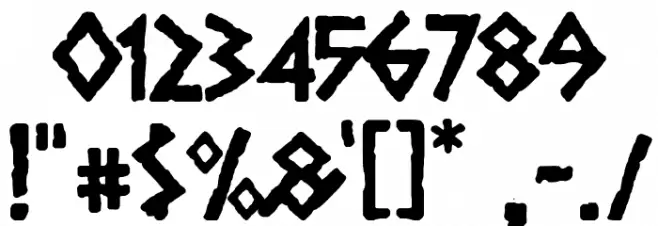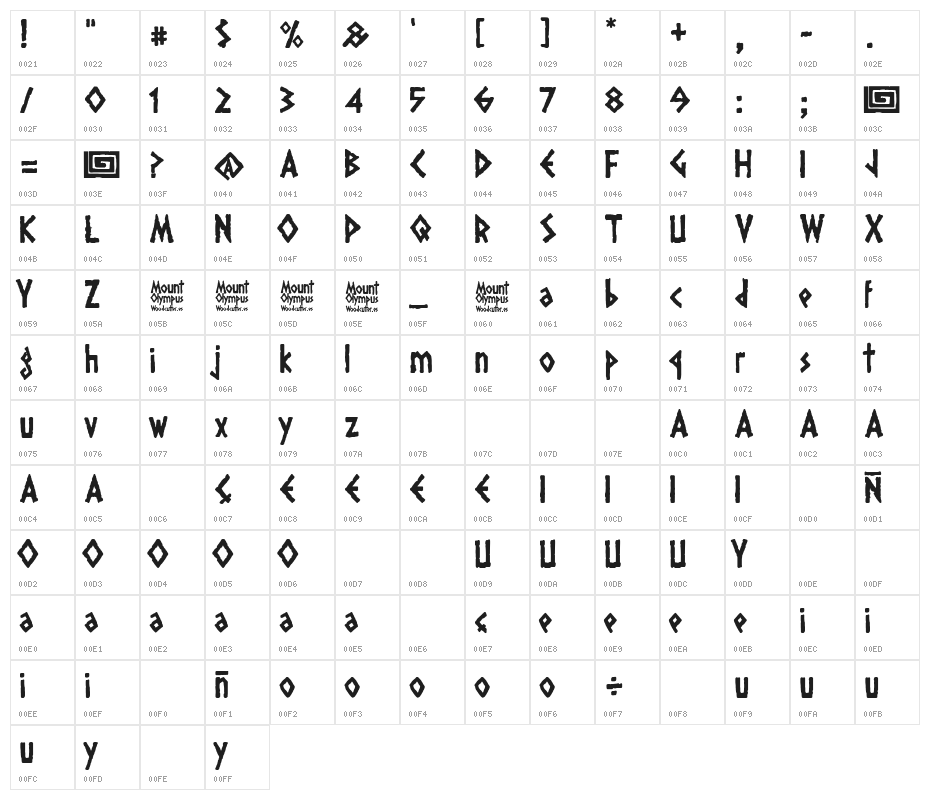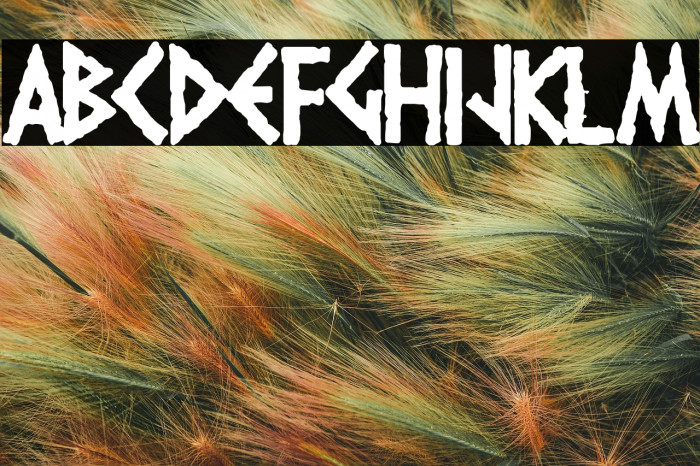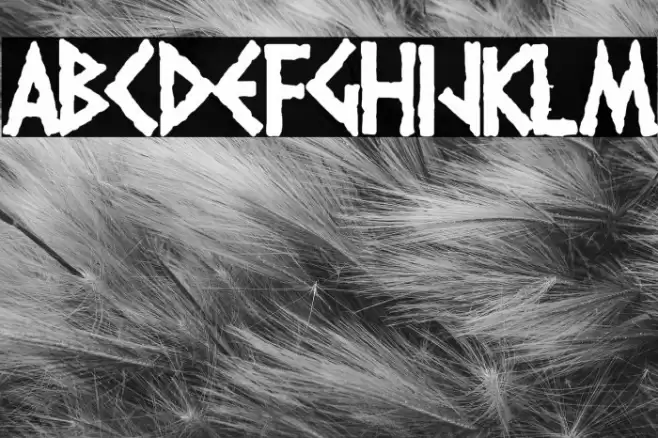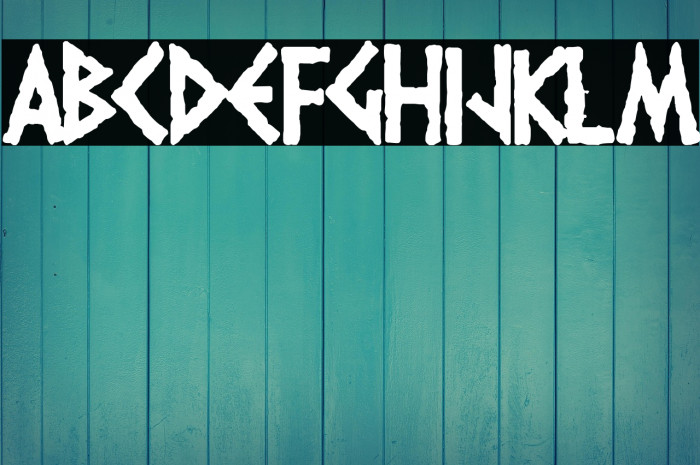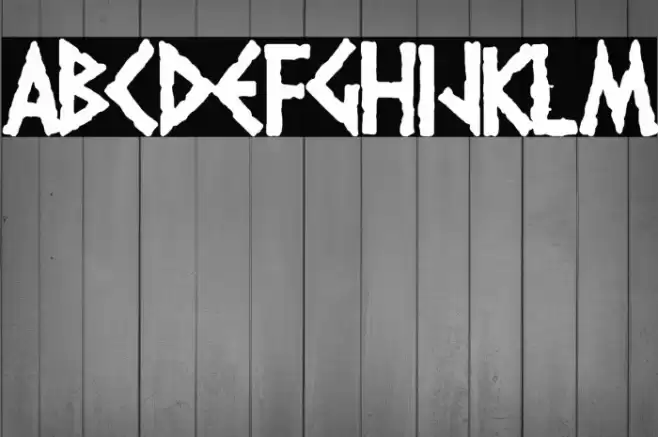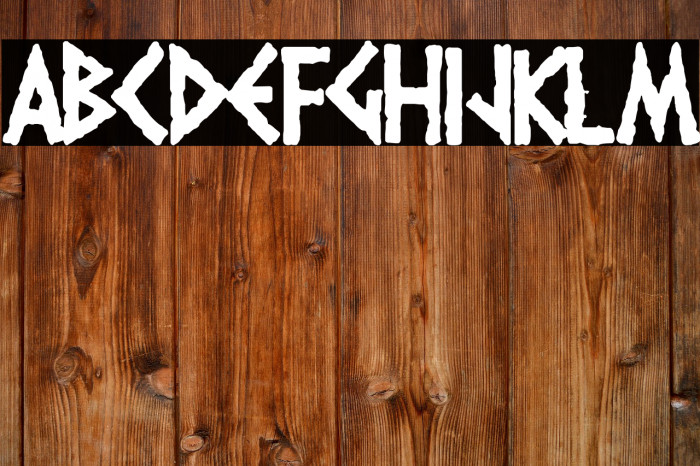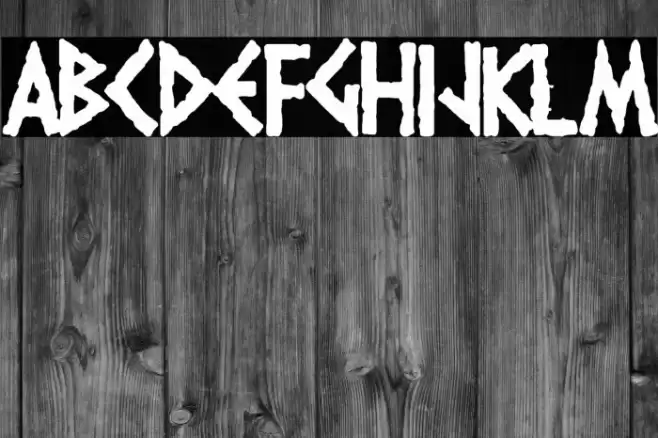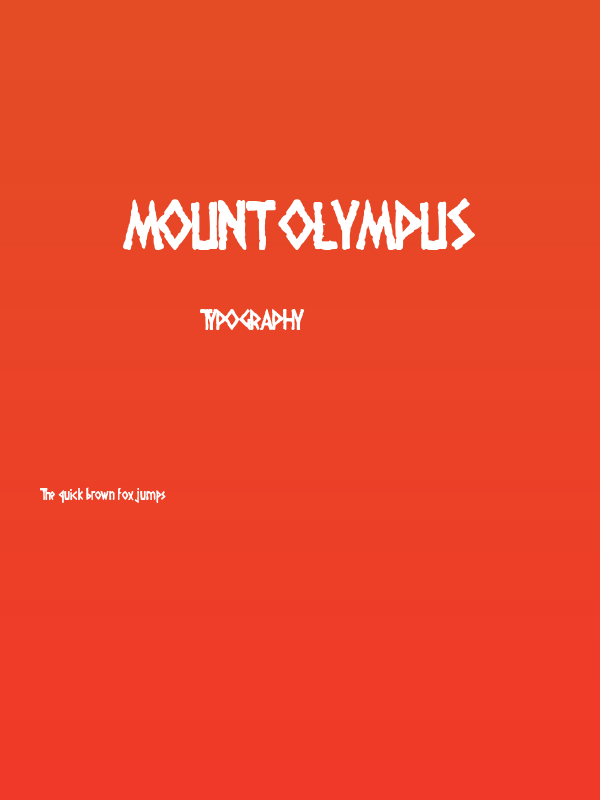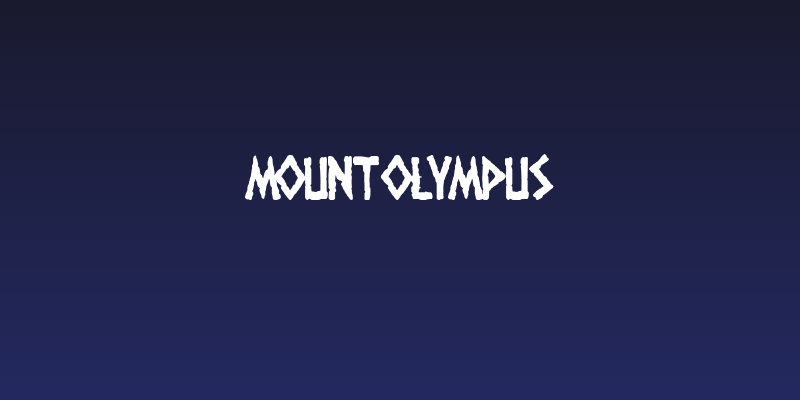
Mount Olympus Font
Mount Olympus Description
This font features a bold and rugged design, reminiscent of ancient inscriptions carved into stone. The characters have a rough, hand-chiseled appearance, with uneven edges and a slightly irregular form that adds to its rustic charm. The uppercase letters are particularly striking, with angular lines and sharp corners that convey a sense of strength and durability. Lowercase letters maintain the same rugged style, ensuring consistency throughout the typeface. The numbers and special characters are equally bold, matching the overall aesthetic. This font is perfect for projects that require a touch of historical or mythological flair, evoking images of ancient civilizations and epic tales.
Overall StyleVintage